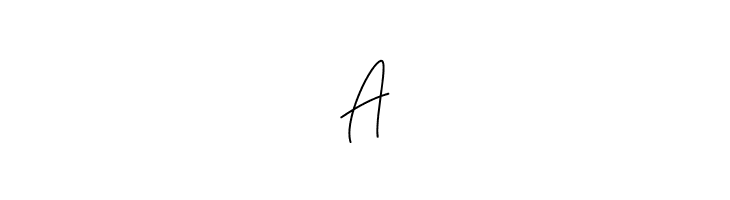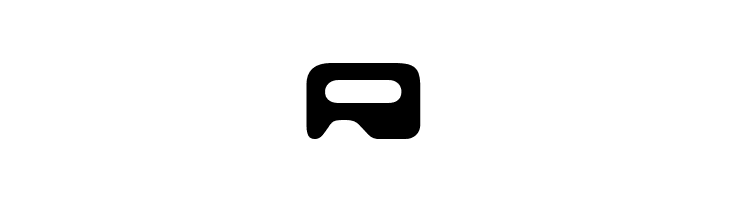
A decorative cursive font with elegant loops and swirls.
A bold, handwritten-style font with dynamic, flowing strokes.
A fluid, cursive script font with elegant, interconnected letters.
A modern sans-serif font with clean lines and a slightly rounded finish.
A modern sans-serif font with geometric shapes and uniform stroke width.
A modern, elegant script font with flowing, cursive characters.
A graceful, handwritten script font with elegant, flowing lines.
A playful handwritten font with smooth curves and a casual style.
A sophisticated script font with elegant, flowing curves.
A sophisticated, cursive script font with elegant, flowing curves.
A futuristic, geometric font with bold, rounded letterforms and consistent thickness.
A modern, handwritten font with elongated, elegant letterforms.
A bold, decorative font with a modern vintage flair, perfect for creative projects.
A bold, textured font with a halftone effect, ideal for creative projects.
A geometric font with bold, rectangular shapes and high contrast.
An elegant, flowing script font with delicate, cursive strokes.
An elegant script font with flowing, cursive lines and intricate flourishes.
A casual, handwritten font with a flowing and dynamic style.
A lively and expressive handwritten font with fluid strokes.
A sophisticated cursive script with a natural, flowing style.
A dynamic and elegant handwritten script with fluid, cursive strokes.
A playful and elegant script font with a handwritten style.
A bold, elegant script font with flowing, cursive letterforms and high contrast.
An elegant, cursive script font with ornate, flowing characters.
A playful and elegant handwritten script font with fluid, connected characters.
A lively, expressive handwritten font with dynamic strokes and playful characters.
A playful, bold handwritten font with rounded, smooth letterforms.
A bold, playful handwritten font with rounded edges and a casual style.
A playful handwritten font with smooth, organic strokes and a casual feel.
A lively and flowing script font with elegant, interconnected letters.
A geometric, outlined font with a modern and futuristic style.
A geometric, outlined font with a modern and technical style.
A bold, geometric font with angular lines and a modern, structured appearance.